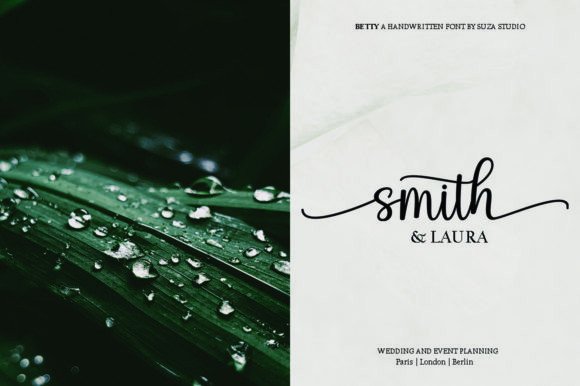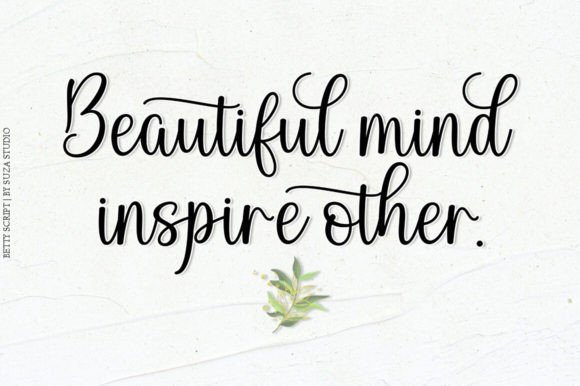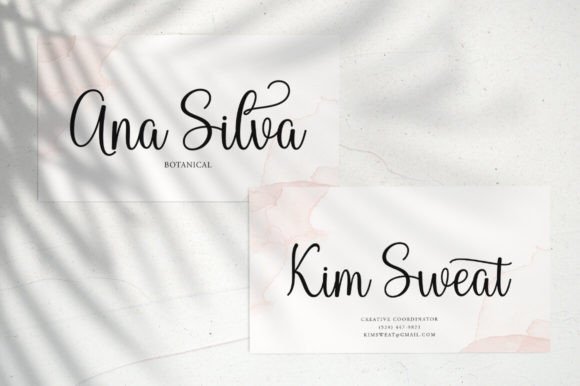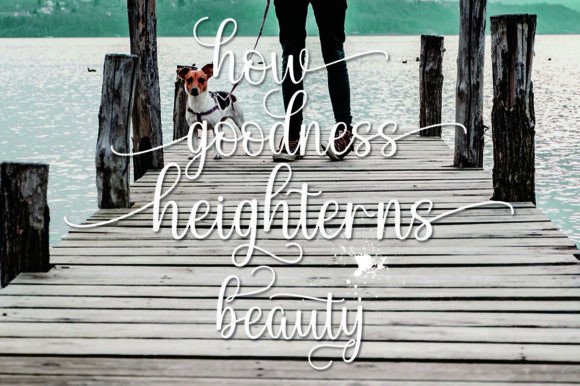
Discover the Charm of Betty Font: A Romantic Calligraphy Typeface
Are you a designer or crafter looking for a unique and elegant font to add a touch of romance to your projects? Look no further than Betty Font, a beautiful calligraphy typeface that is sure to capture your heart. In this article, we’ll dive into the world of Betty Script, exploring its features, uses, and benefits, and why it’s a must-have for any creative looking to add a dash of whimsy and sophistication to their work.
The Beauty of Betty Script
Betty Script is a romantic and sweet calligraphy typeface that boasts characters that dance along the baseline, giving it a lively and carefree feel. With its casual yet elegant touch, this font is perfect for a wide range of applications, from logos and wedding invitations to headings, t-shirts, letterhead, signage, labels, news, posters, badges, and more.
Key Features of Betty Font
• Romantic and Whimsical: Betty Script’s dancing characters and flowing lines evoke a sense of romance and playfulness, making it ideal for projects that require a touch of whimsy.
• Elegant and Sophisticated: Despite its casual feel, Betty Font exudes elegance and sophistication, making it suitable for high-end projects and applications.
• Versatile: With its wide range of uses, Betty Script is a versatile font that can be used for various purposes, from digital projects to print materials.
• Easy to Read: Despite its ornate and cursive nature, Betty Font remains easy to read, making it perfect for body text and headlines.
Uses of Betty Font
Betty Script’s versatility makes it an excellent choice for various projects, including:
• Wedding Invitations: Add a touch of romance and elegance to your wedding invitations with Betty Font.
• Logos: Create a unique and memorable logo for your business or brand with this beautiful calligraphy typeface.
• Headings and Titles: Use Betty Script to add a touch of sophistication to your headings and titles.
• T-Shirts and Apparel: Create stunning designs for t-shirts, hoodies, and other apparel with this eye-catching font.
• Signage and Labels: Use Betty Font to create eye-catching signage and labels that grab attention.
Benefits of Using Betty Font
By incorporating Betty Script into your projects, you’ll enjoy several benefits, including:
• Unique and Memorable: Betty Font’s distinctive style ensures that your projects stand out from the crowd and leave a lasting impression.
• Emotional Connection: The romantic and whimsical nature of Betty Script helps create an emotional connection with your audience.
• Flexibility: With its wide range of uses, Betty Font is an excellent addition to any designer’s or crafter’s toolkit.
Tips for Using Betty Font
To get the most out of Betty Script, follow these tips:
• Pair with Other Fonts: Combine Betty Font with other fonts to create a unique and visually appealing typography.
• Experiment with Colors: Try out different colors and textures to add depth and interest to your projects.
• Keep it Simple: Don’t overcomplicate your design – let Betty Script’s elegance shine through.
Betty Font is a beautiful and versatile calligraphy typeface that is sure to capture your heart. With its romantic and whimsical nature, elegant touch, and wide range of uses, it’s an excellent addition to any designer’s or crafter’s toolkit. Whether you’re working on a wedding invitation, logo, or signage, Betty Script is the perfect choice to add a touch of sophistication and whimsy to your projects.